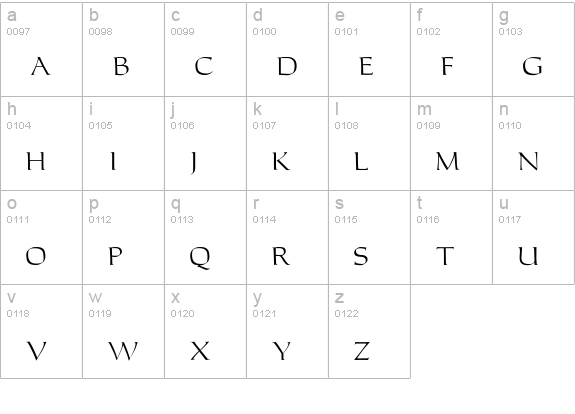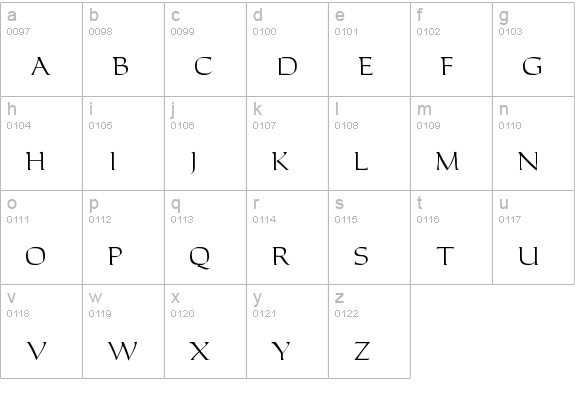
CarolusRomanFon Font Details
Introducing CarolusRomanFon font, a timeless and elegant typeface that exudes sophistication and charm. With its classic Roman-inspired design and clean lines, this font is perfect for adding a touch of refinement to any project. The intricate detailing and graceful curves of CarolusRomanFon make it a versatile choice for a wide range of design applications, from invitations to branding to editorial layouts. What sets CarolusRomanFon apart is not only its exquisite aesthetic appeal but also the fact that it is available for free download at FontsMarket.com. Yes, you read that right - this stunning font can be yours at no cost, allowing you to elevate your designs without breaking the bank. So why wait? Enhance your projects with the timeless beauty of CarolusRomanFon today and make a lasting impression with every word you write.